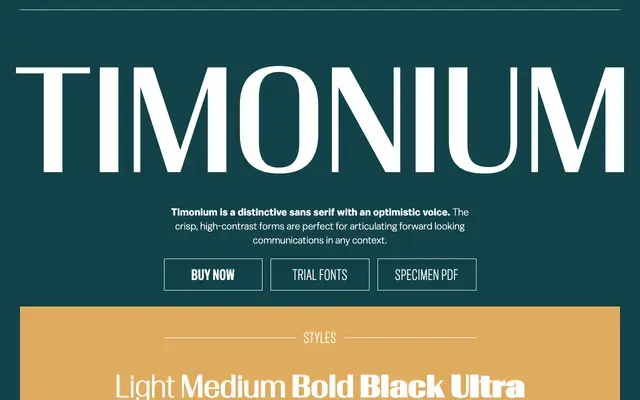
A high-contrast sans serif in five weights, built for forward-looking display and communication work.
Crisp stroke contrast gives Timonium an upbeat, energetic quality that suits editorial headlines and brand communications. The family runs from Light to Ultra across five weights, with OpenType features including small capitals, case-sensitive forms, tabular figures and fractions. Language support spans a wide range of Latin-based scripts across more than fifty languages.
Described as a crisp, high-contrast sans serif with an optimistic character; the elevated stroke contrast and clean forms place it closer to a display-oriented geometric or optically refined sans rather than a neutral grotesque.